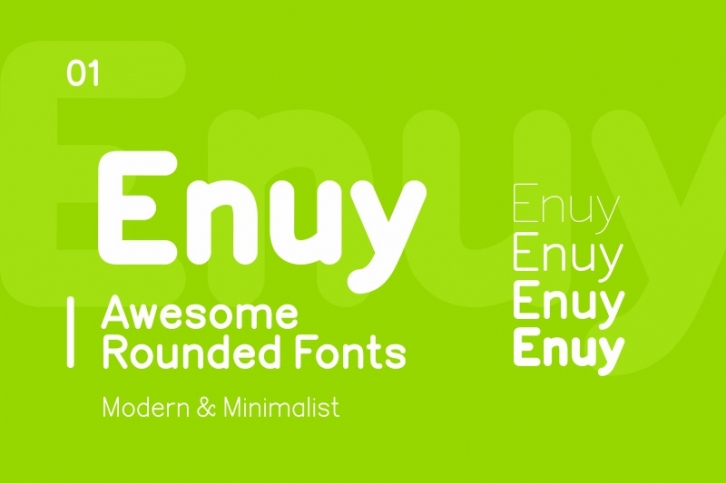
Enuy Font Sans Serif Download
Enuy Font is an Awesome rounded fonts sans serif font family, makes your design looks Modern & Minimalist.
• 8 Fonts (Thin, Thin Italic, Regular, Regular Italic, Bold, Bold Italic, Black, Black Italic)